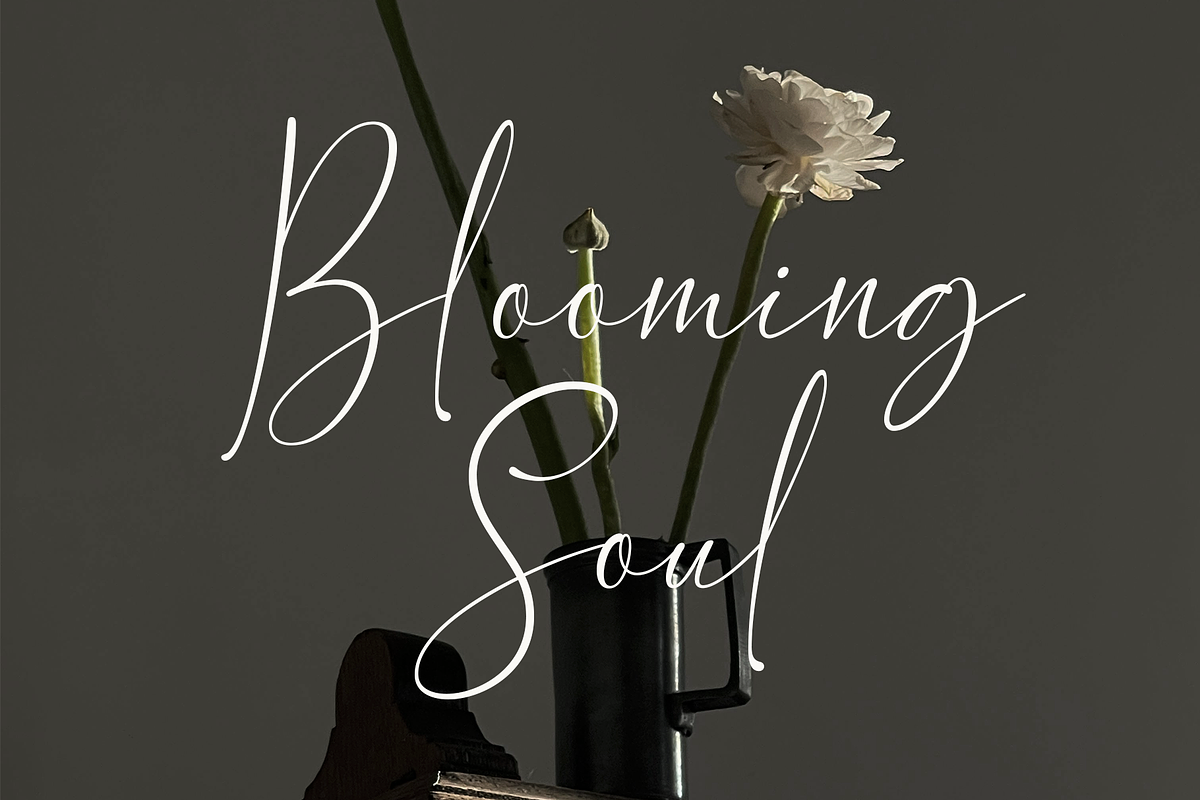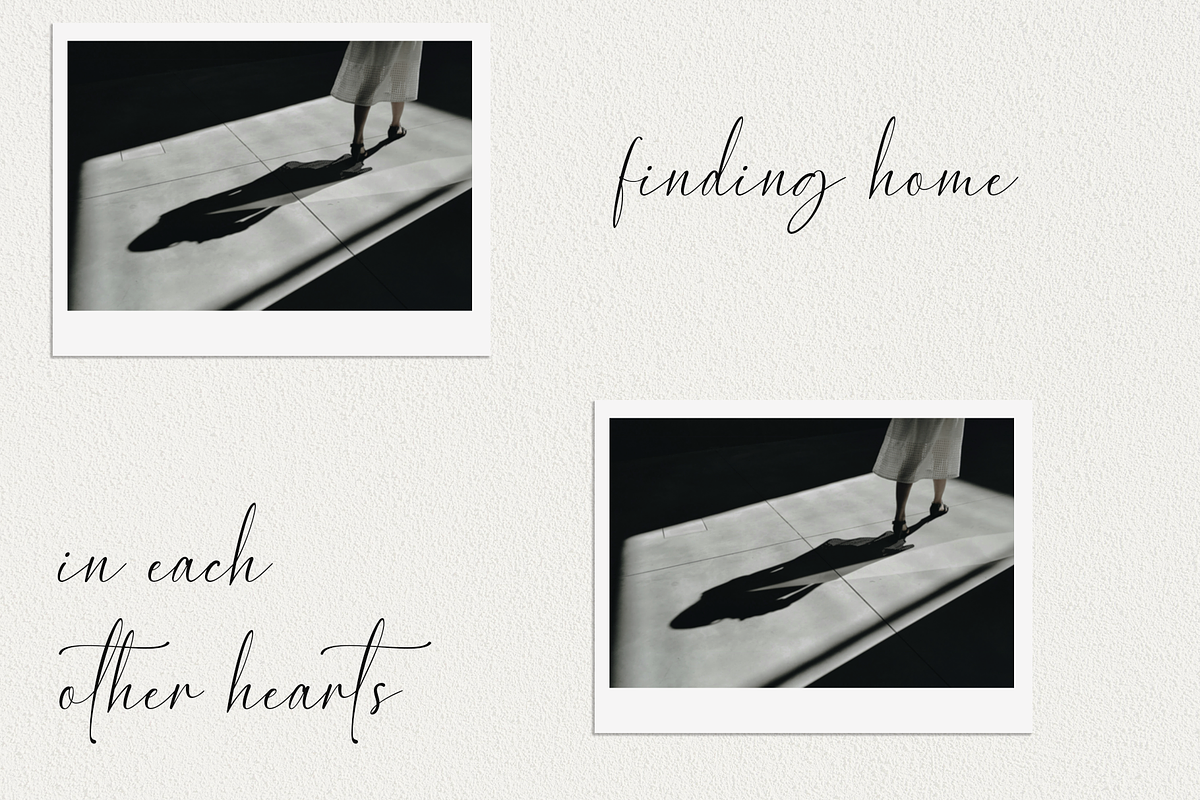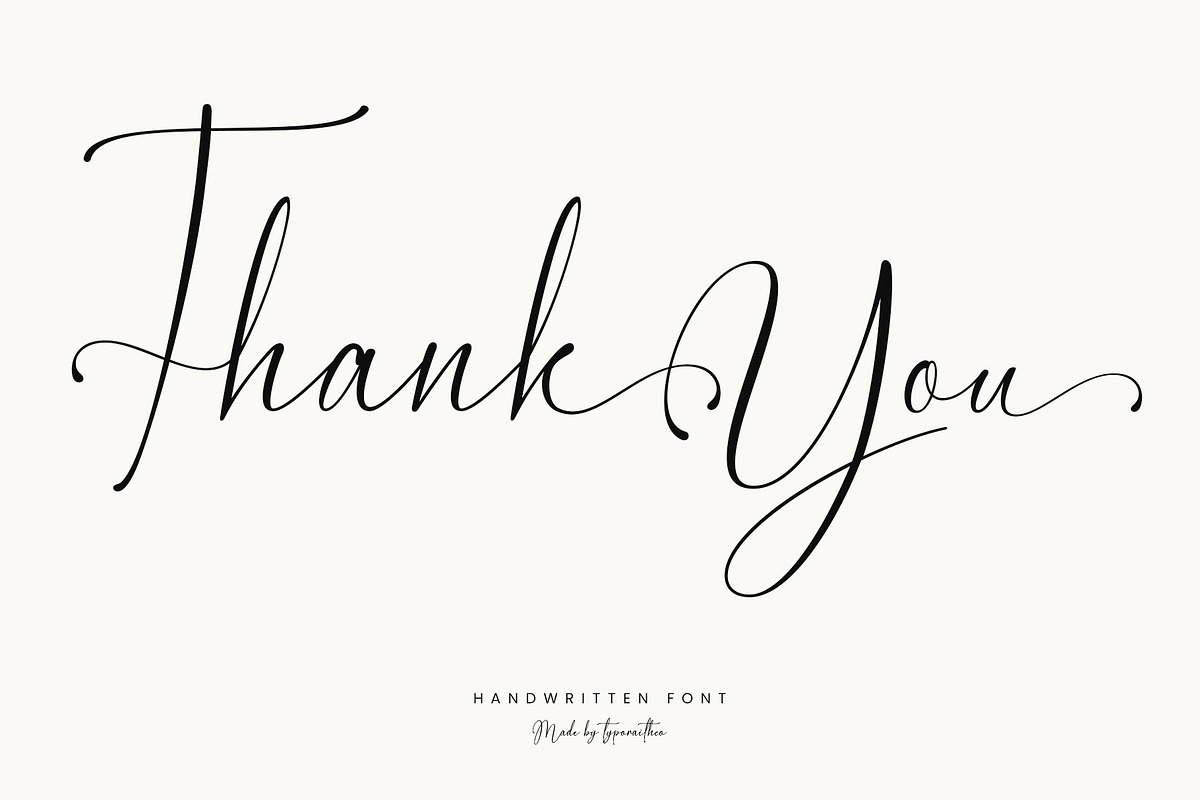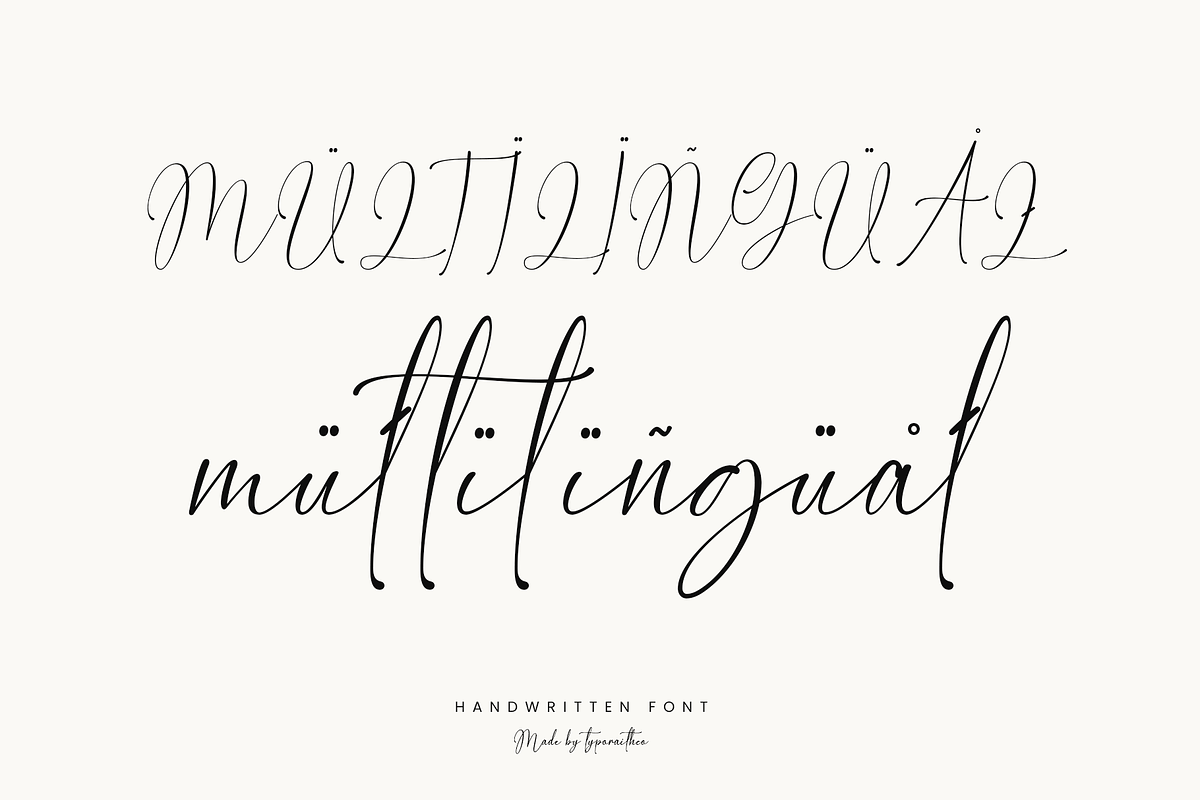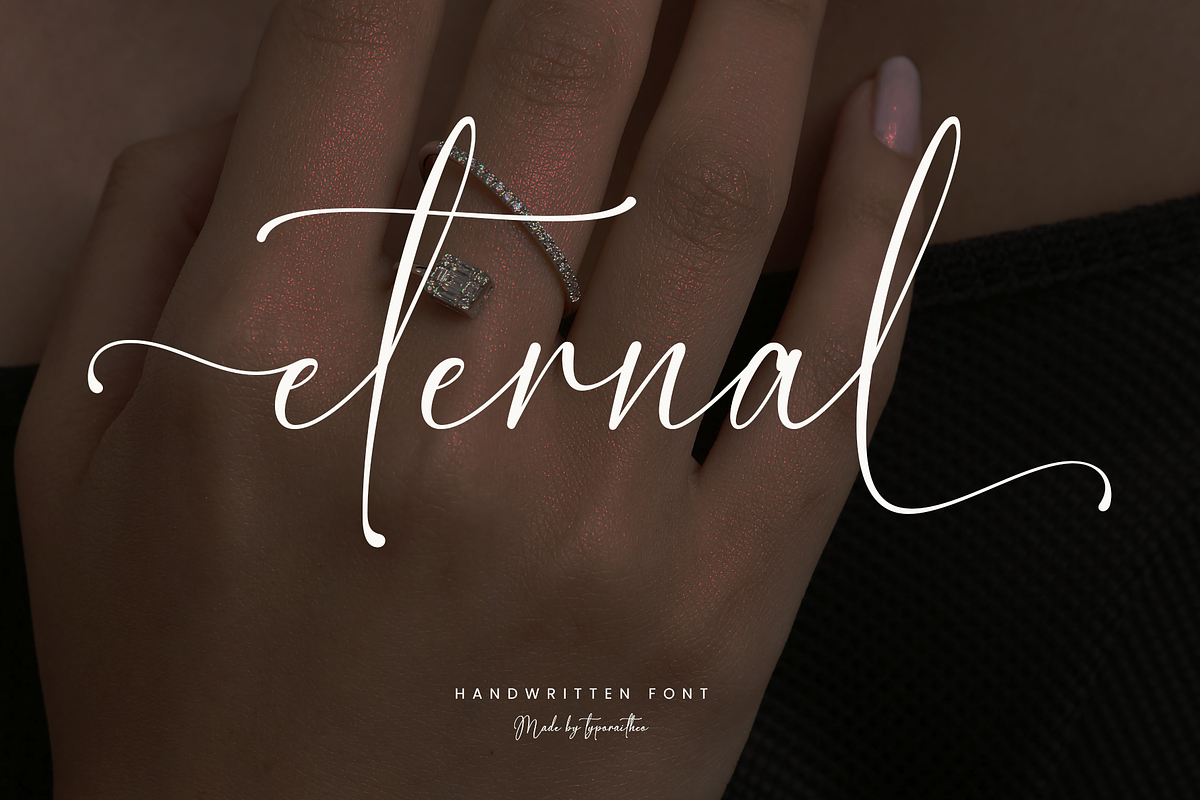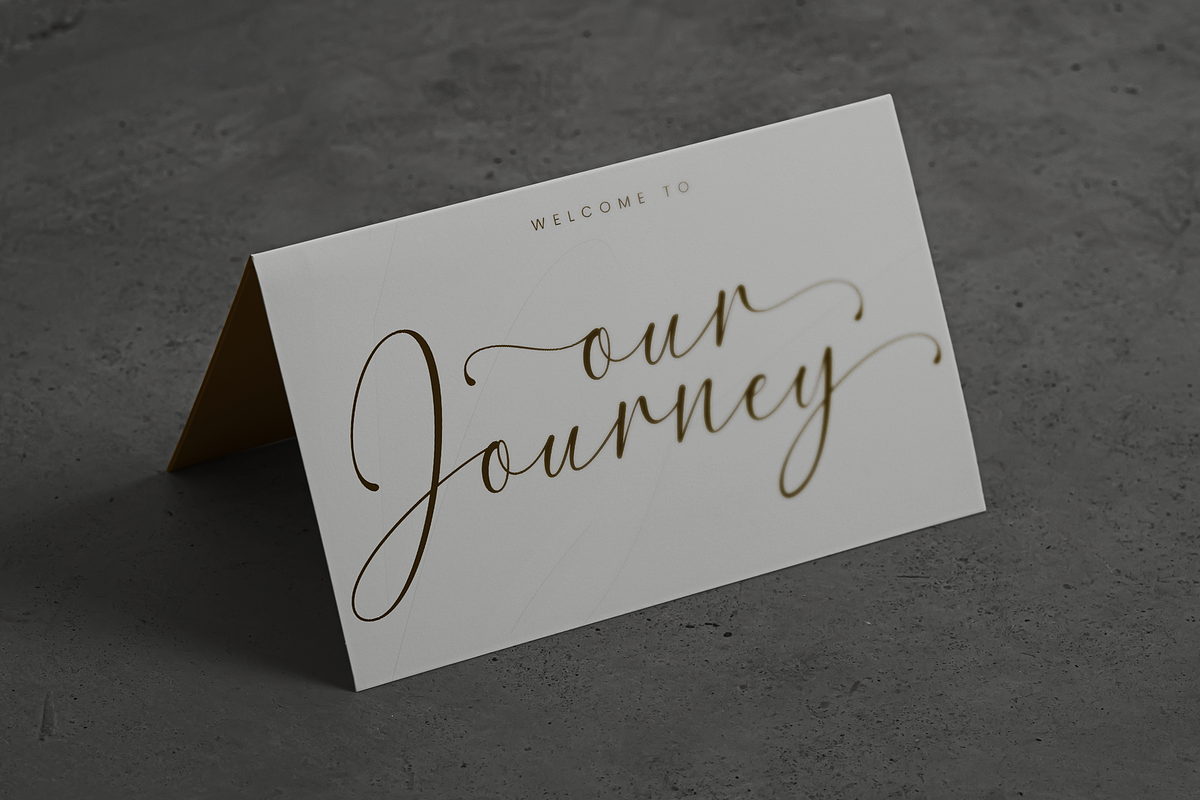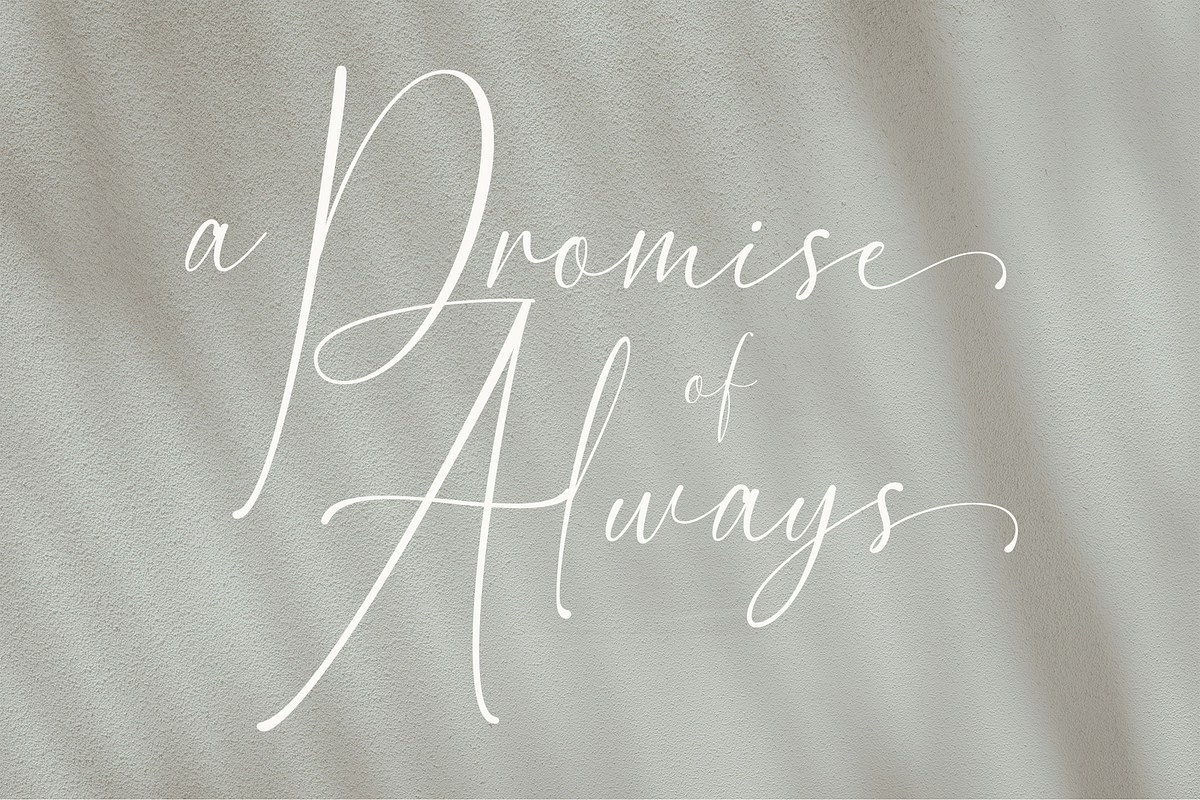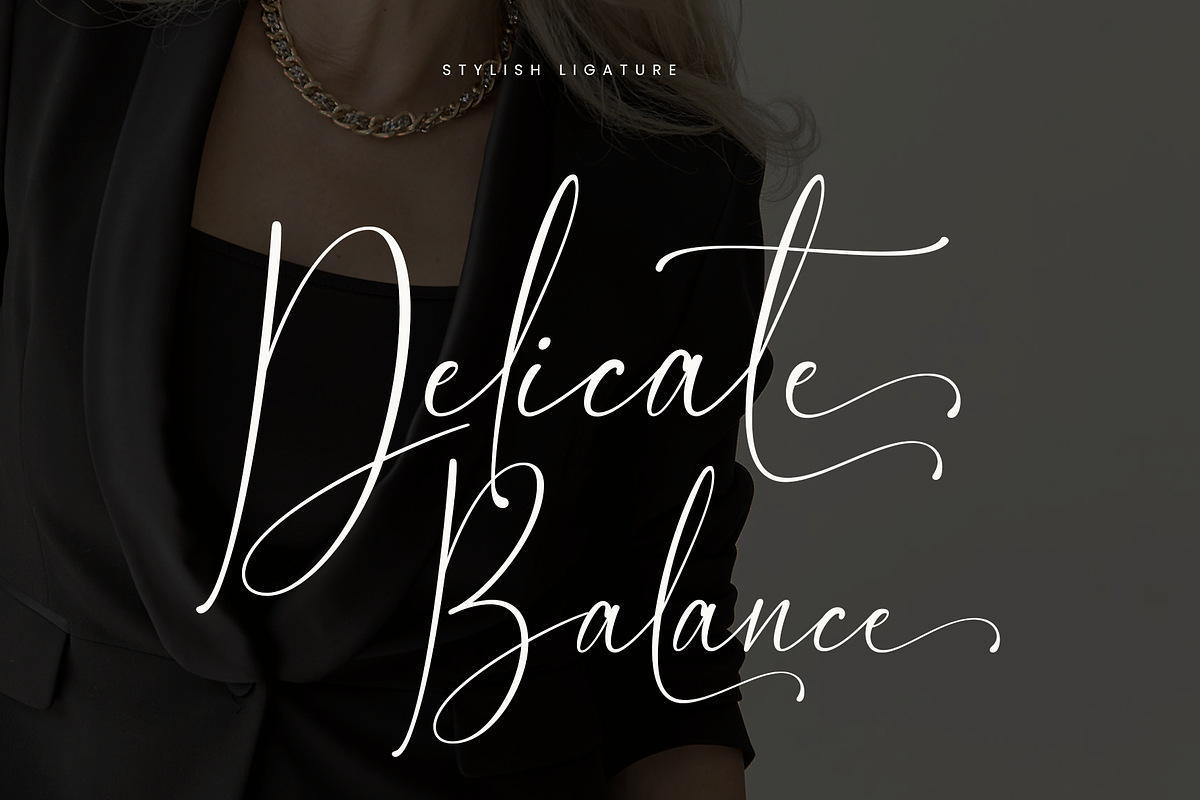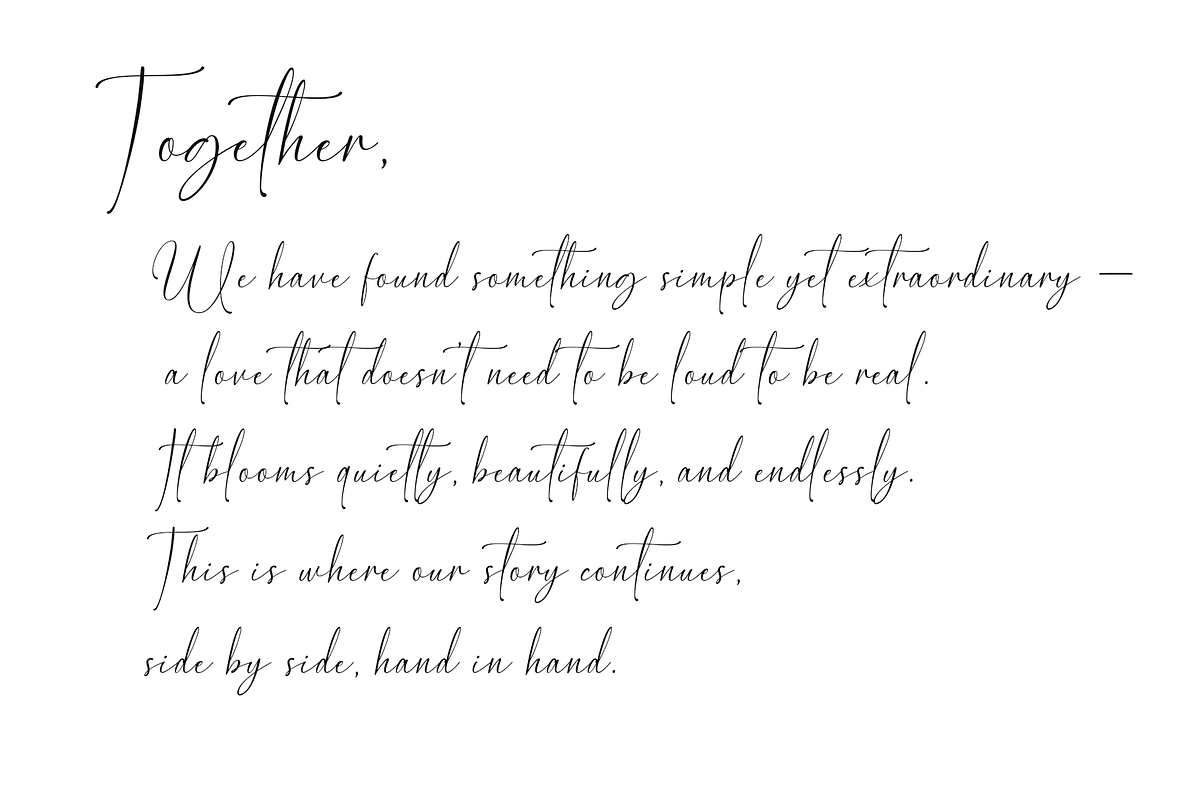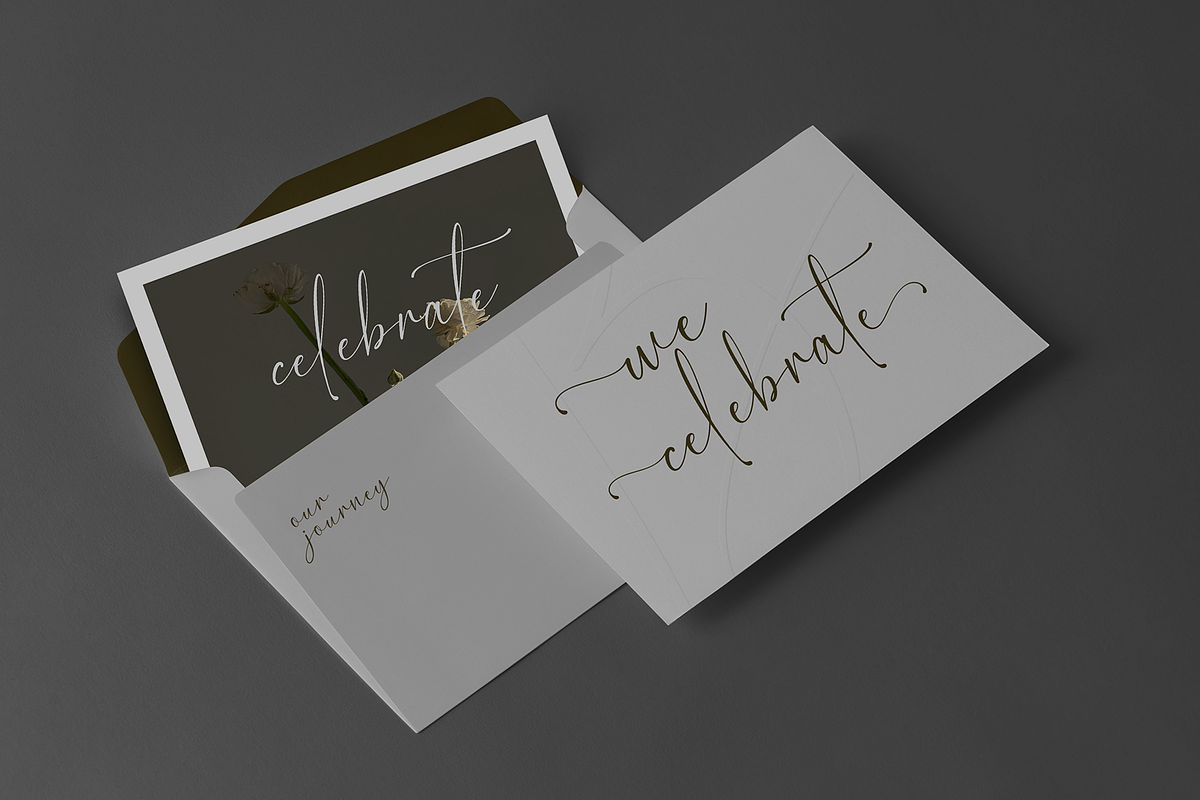
Faith Claire | Elegant Script Font
Faith Claire is a beautiful handwritten font that exudes timeless elegance and feminine charm. With its delicate strokes and graceful letterforms, this typeface adds a touch of sophistication to any design. Perfect for wedding invitations, branding, logos, greeting cards, quotes, and other creative projects that need a personal and elegant feel.
- Smooth and natural flow
Faith Claire is more than just a font – it’s a statement of beauty and grace. Perfect for designers looking to bring a luxurious handwritten style to their work.